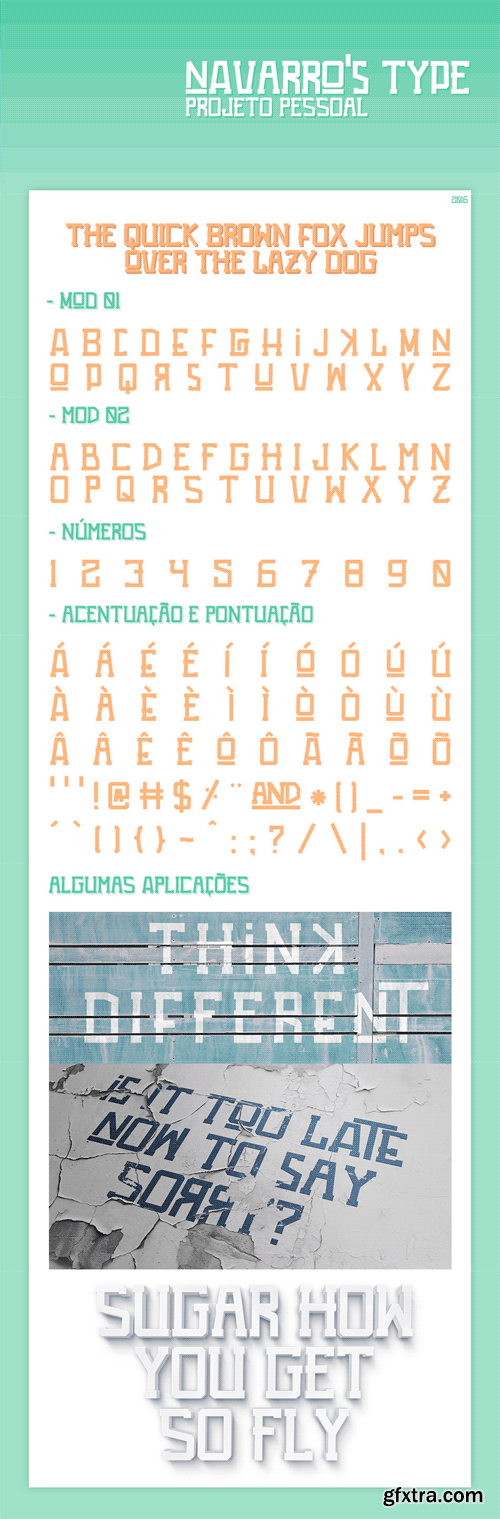
Navarro’s Type Font
Navarro’s Type is a display font with vintage look. It includes two variants of uppercase letters, numbers, sumbols and supports some languages. Navarros Type font suites for logos and branding, badges, headlines, posters, prints and other concept designs.